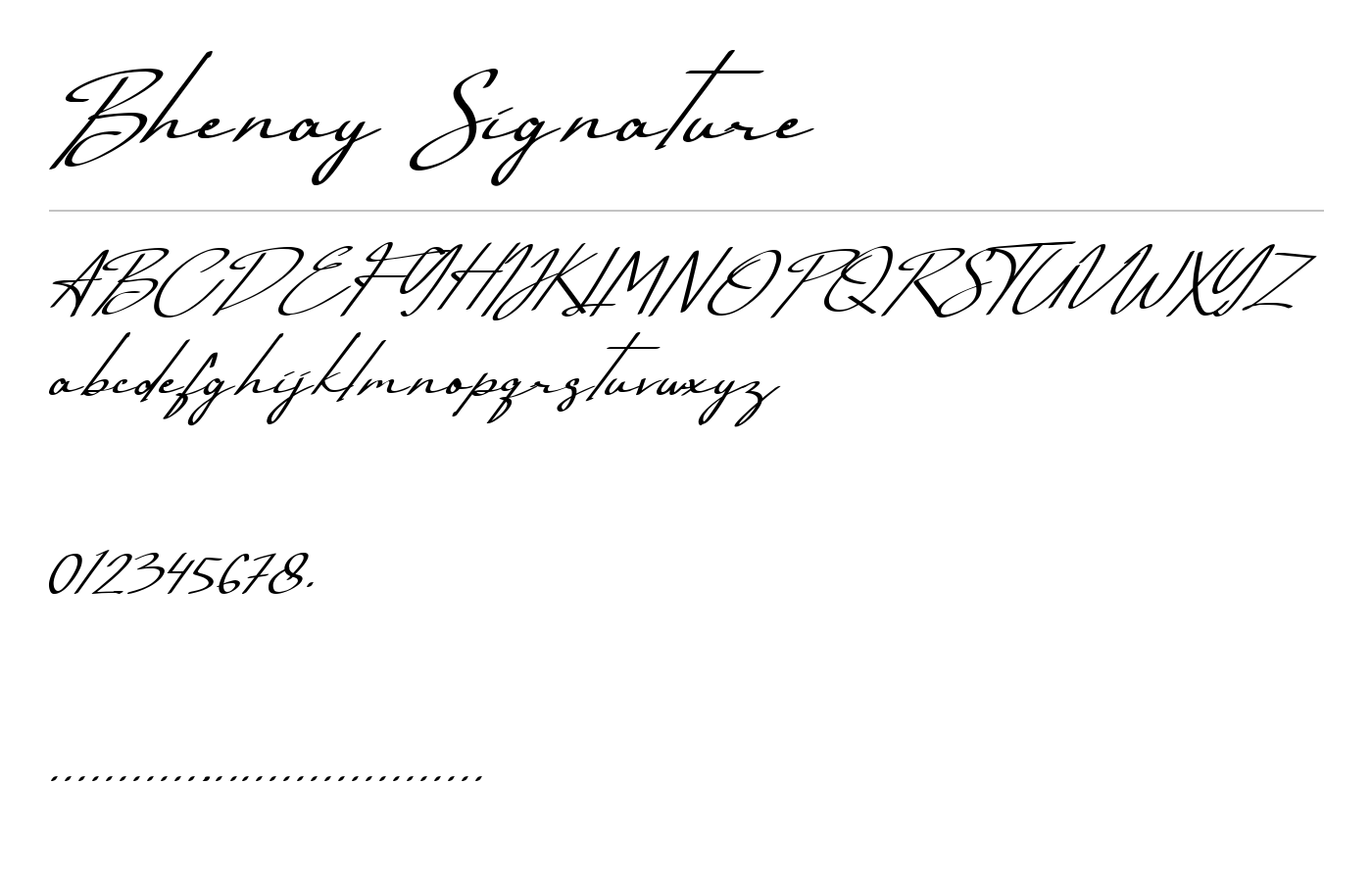
Bhenay Signature is a delicate, modern script font that mimics elegant, handwritten signatures with its slender, flowing strokes and high-contrast lines. Its narrow letterforms and graceful curves give it a sophisticated and personal touch, making it perfect for branding, invitations, and logos where a refined, stylish impression is desired. This font works beautifully in designs that require a touch of luxury and individuality.
Bhenay Signature Font
About Bhenay Signature Font
| Font family | Bhenay Signature Font |
| Designer | Nabila Graphic Team |